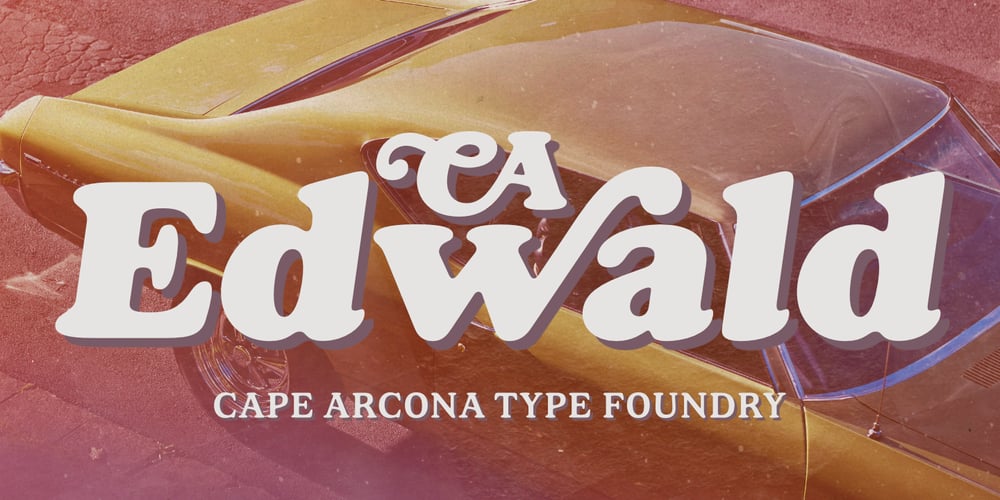
CA Edwald Font Family was designed by Stefan Claudius, Thomas Schostok and published by Cape Arcona Type Foundry. CA Edwald contains 10 styles and family package options. CA Edwald, the superbly crafted alphabet design now available in 5 weights, combining the familiar, the unusual, the practical and the aesthetic.Plan ahead and make use of the assorted logo letters that add distinction to your headline.CA Edwald is a welcome addition to our ever-growing collection of alphabet designs. It is prepared to meet your graphic requirements.Now there is one trusty Musketeer for today’s advertising.The illegitimate child of Oswald Bruce Cooper and Ed Benguiat, a mixture or even the “best of”: CA EDWALD.